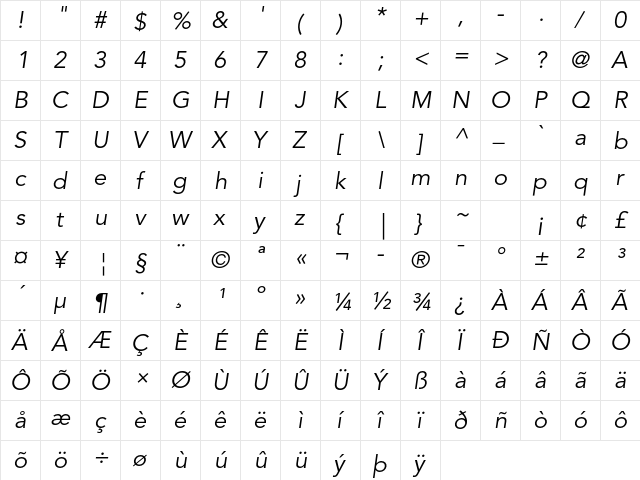
Avenir LT Std 45 Book Oblique Font Preview
| Style | 45 Book Oblique |
| Designer | Adrian Frutiger |
Design Context for Avenir LT Std Typeface
Avenir LT Std takes a measured approach to typography — its balanced proportions and neutral character make it a reliable workhorse for both digital and print work. The dynamic lean of this cut emphasises speed and emphasis in any layout. Its slender proportions lend an understated elegance to any composition.
Pro Tip: Try Avenir LT Std for annotation and caption copy alongside an upright companion — the contrast in angle creates a dynamic but ordered typographic system.